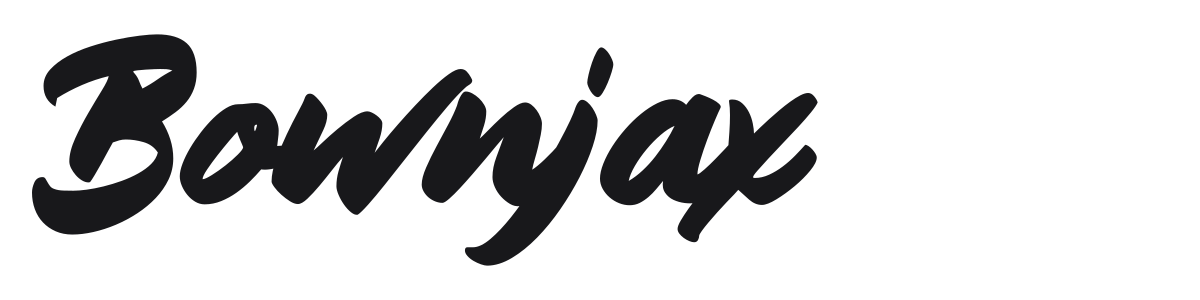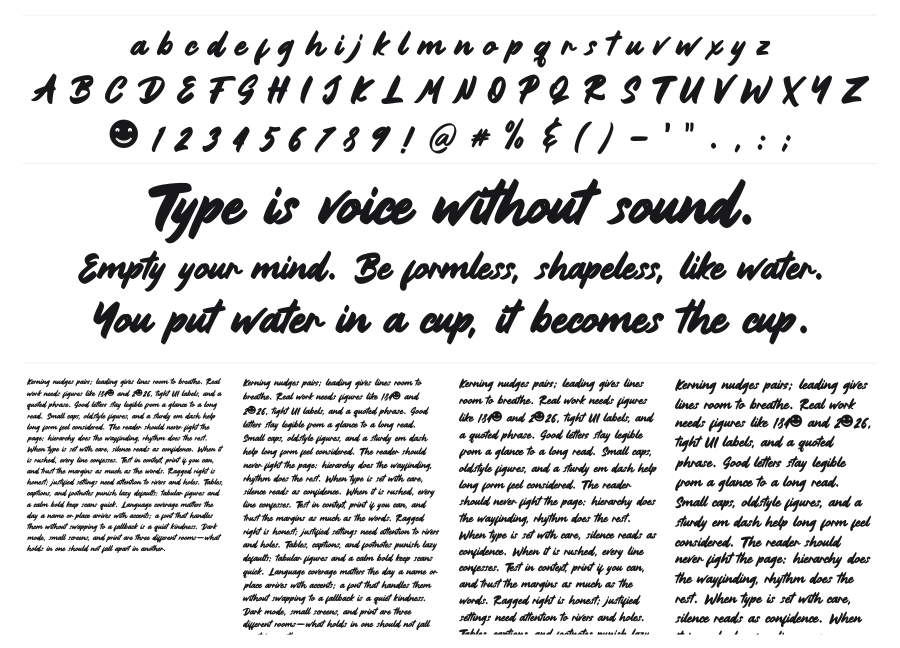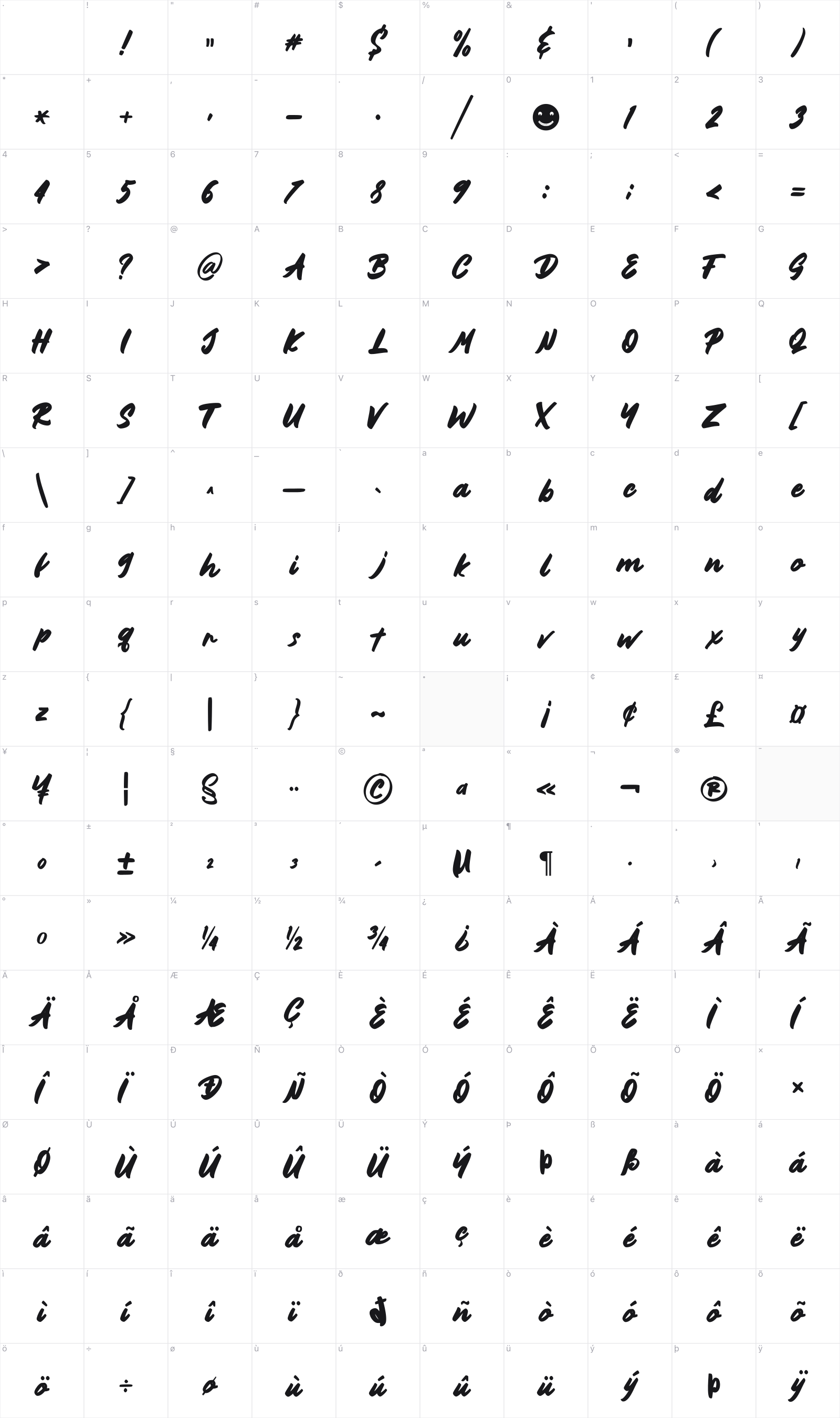
Bownjax
Bownjax is a bold casual brush script with the loose energy of hand-lettering done in a single confident sweep. The thick connected strokes and bouncy baseline keep it feeling informal and alive rather than mechanical. It works best large, for logos, packaging, and anywhere a handmade touch matters.